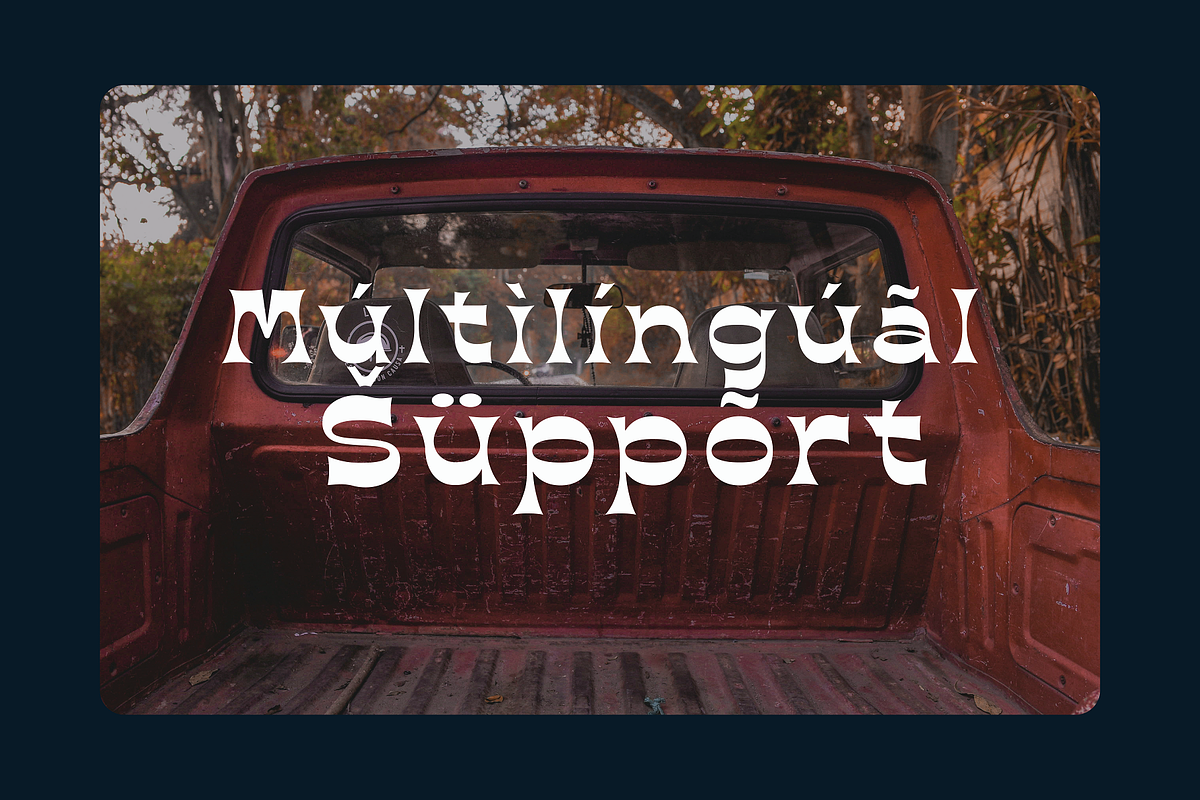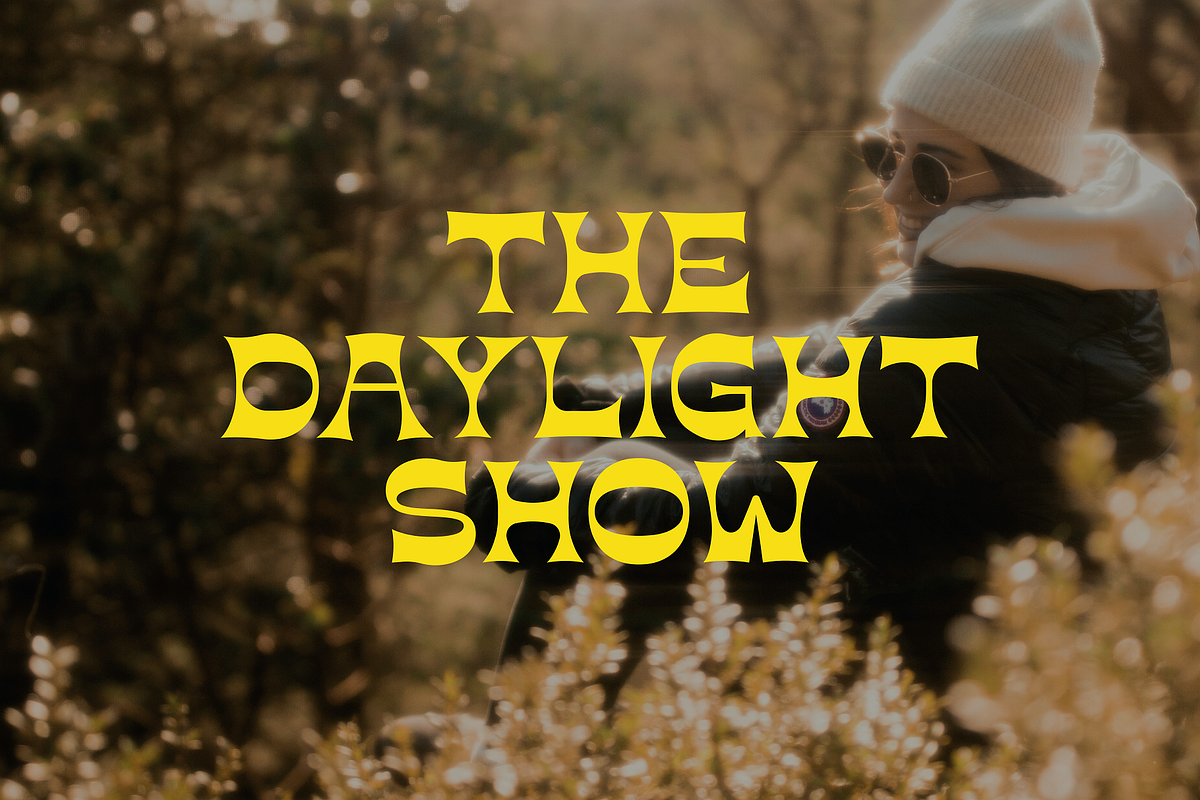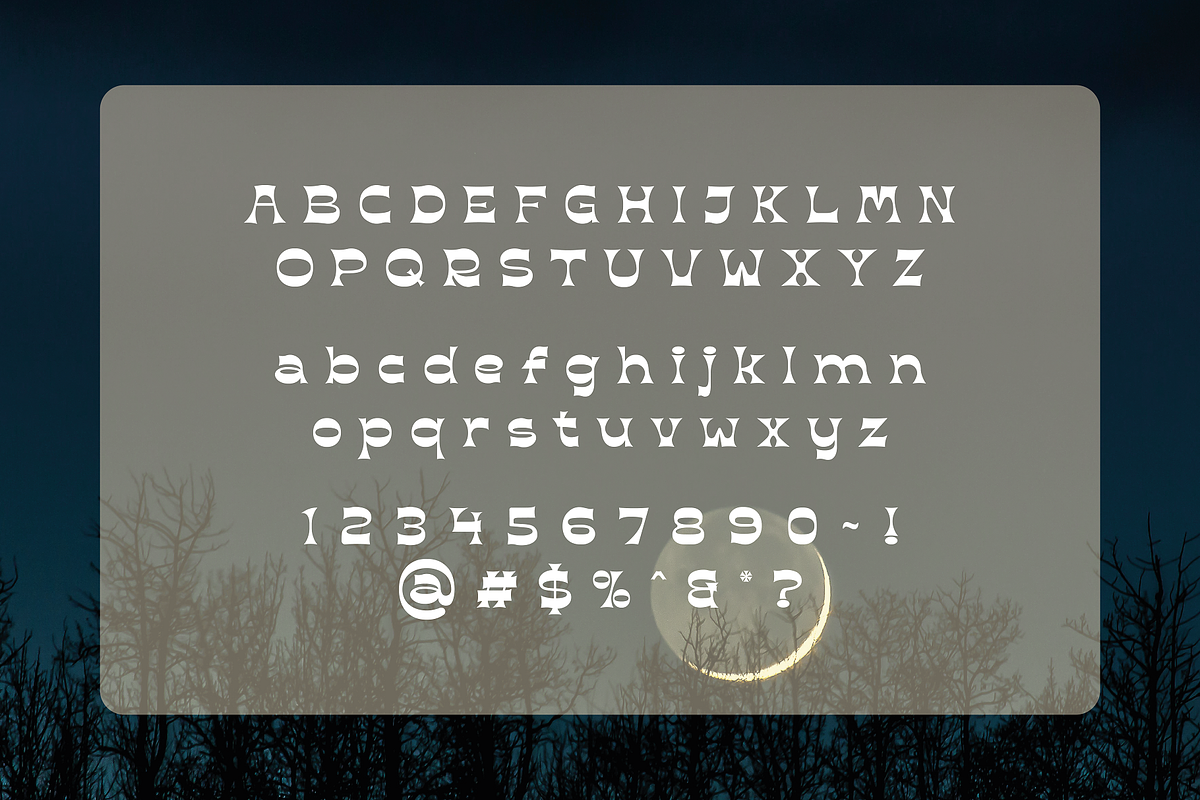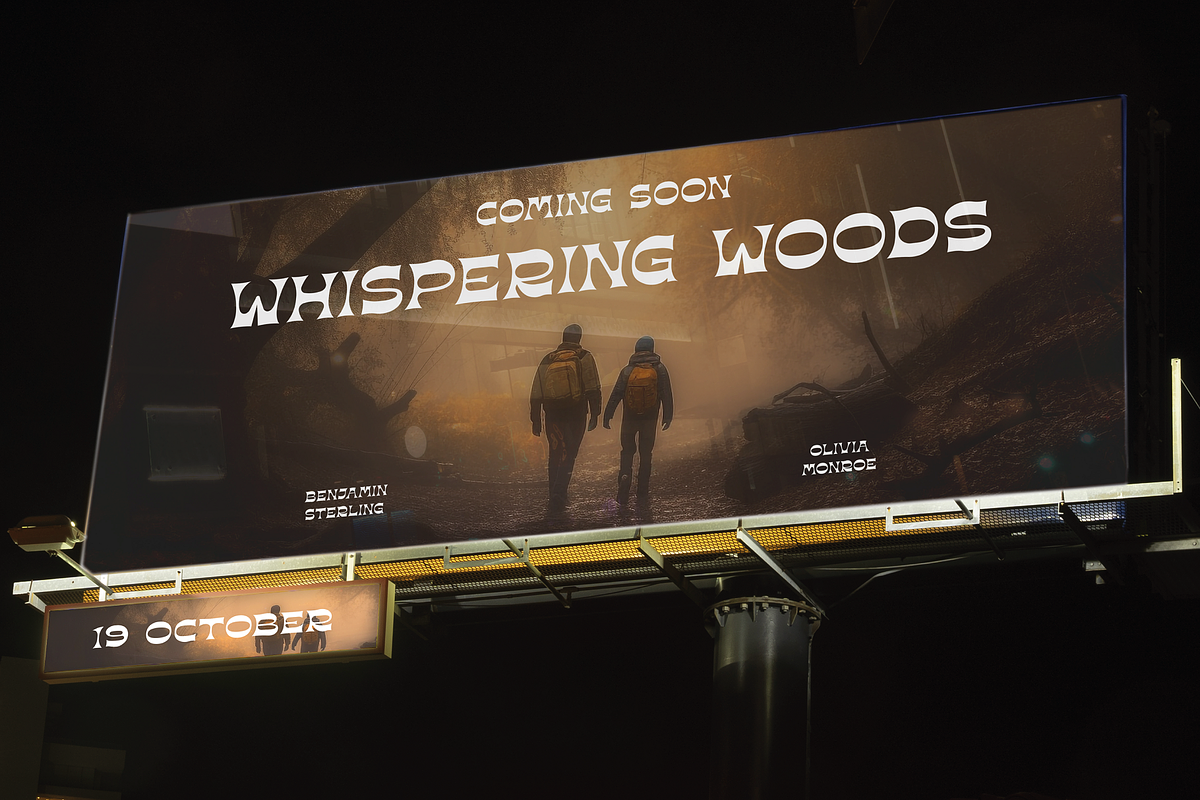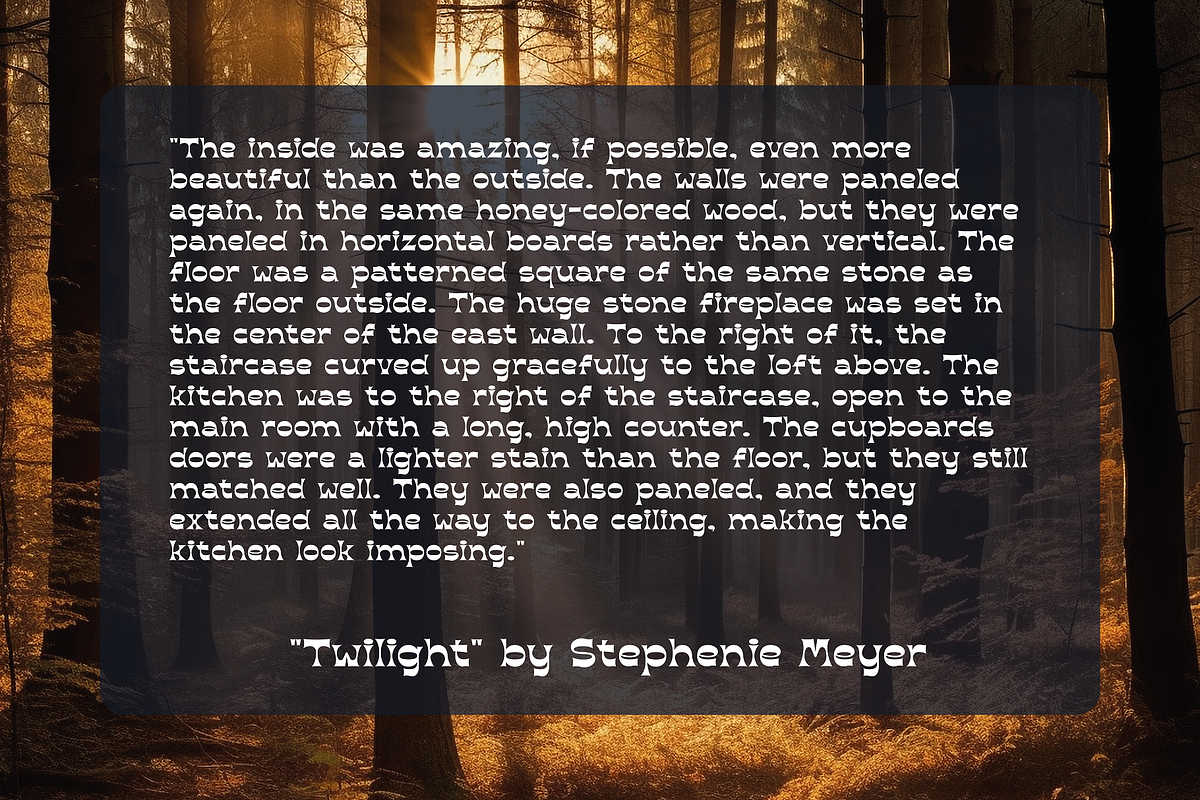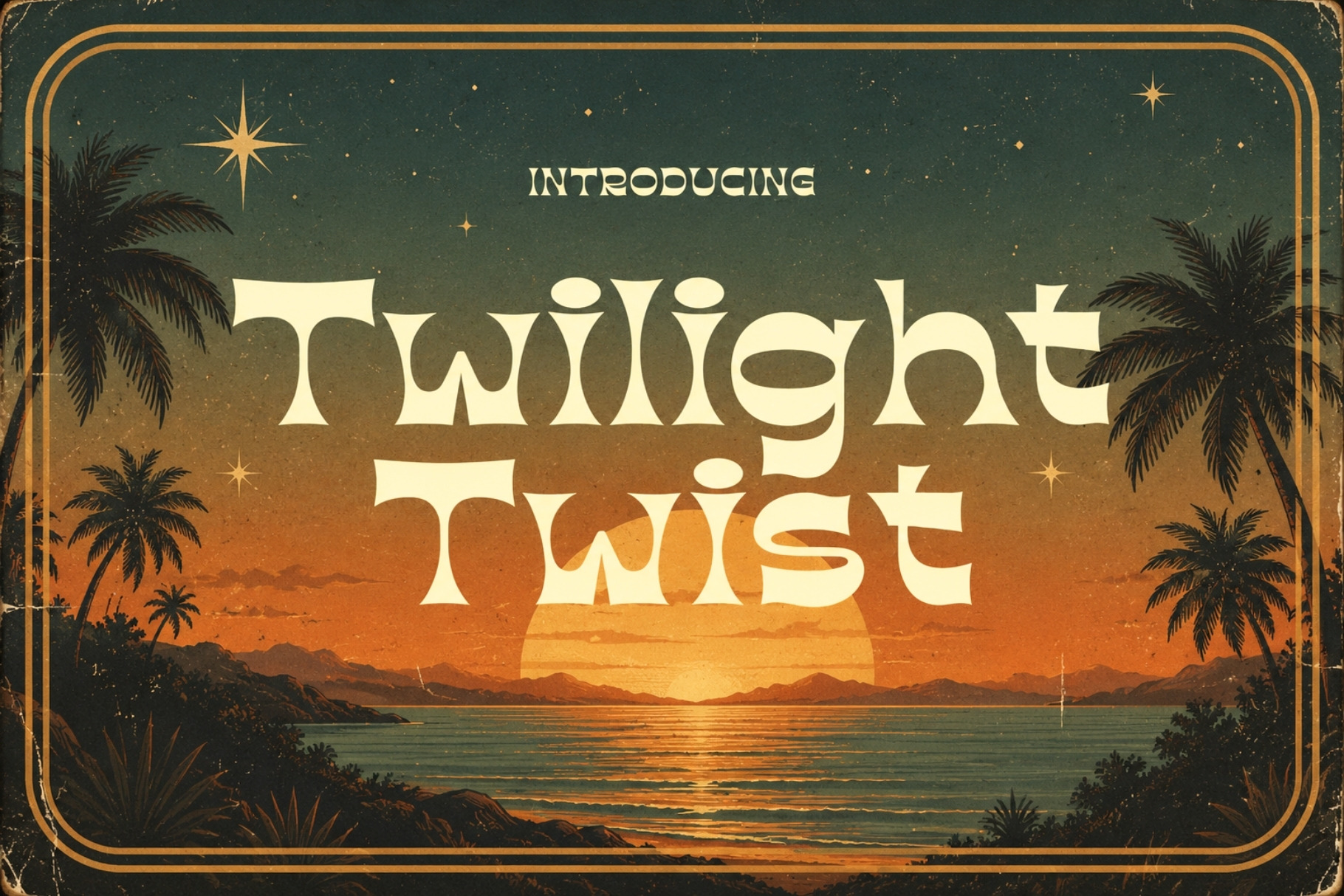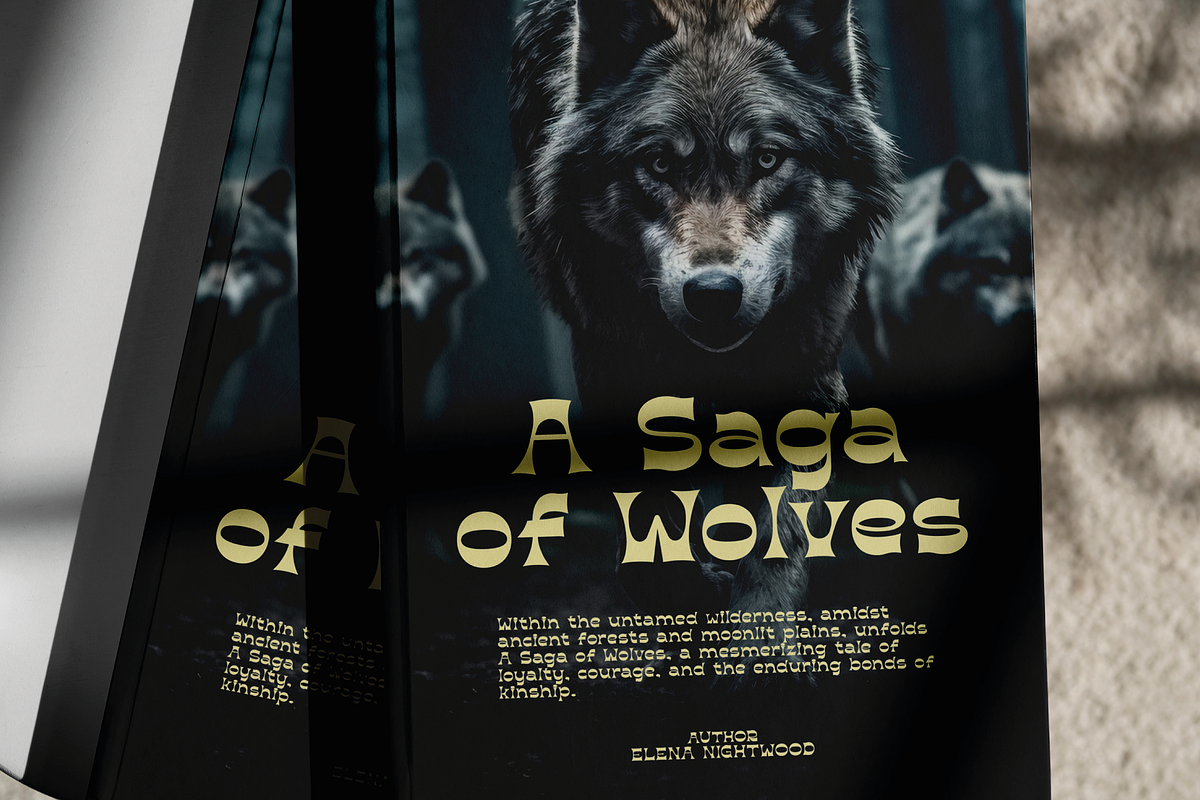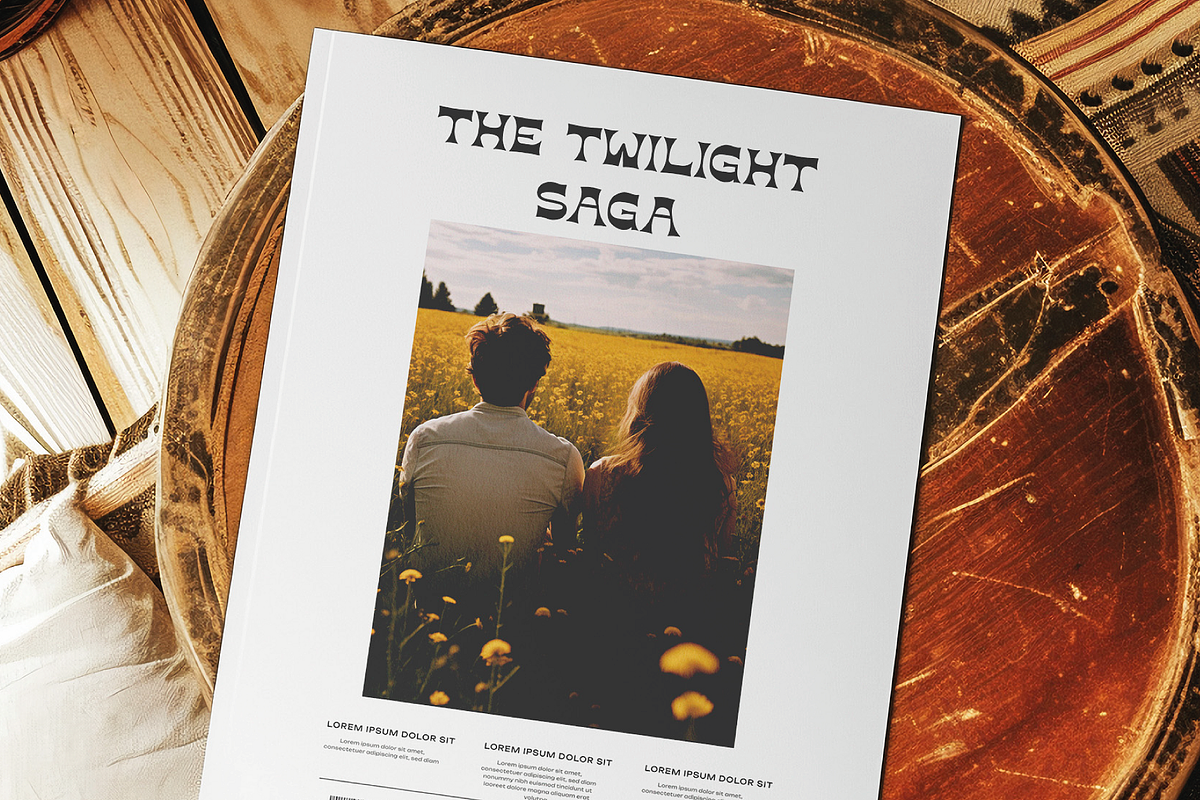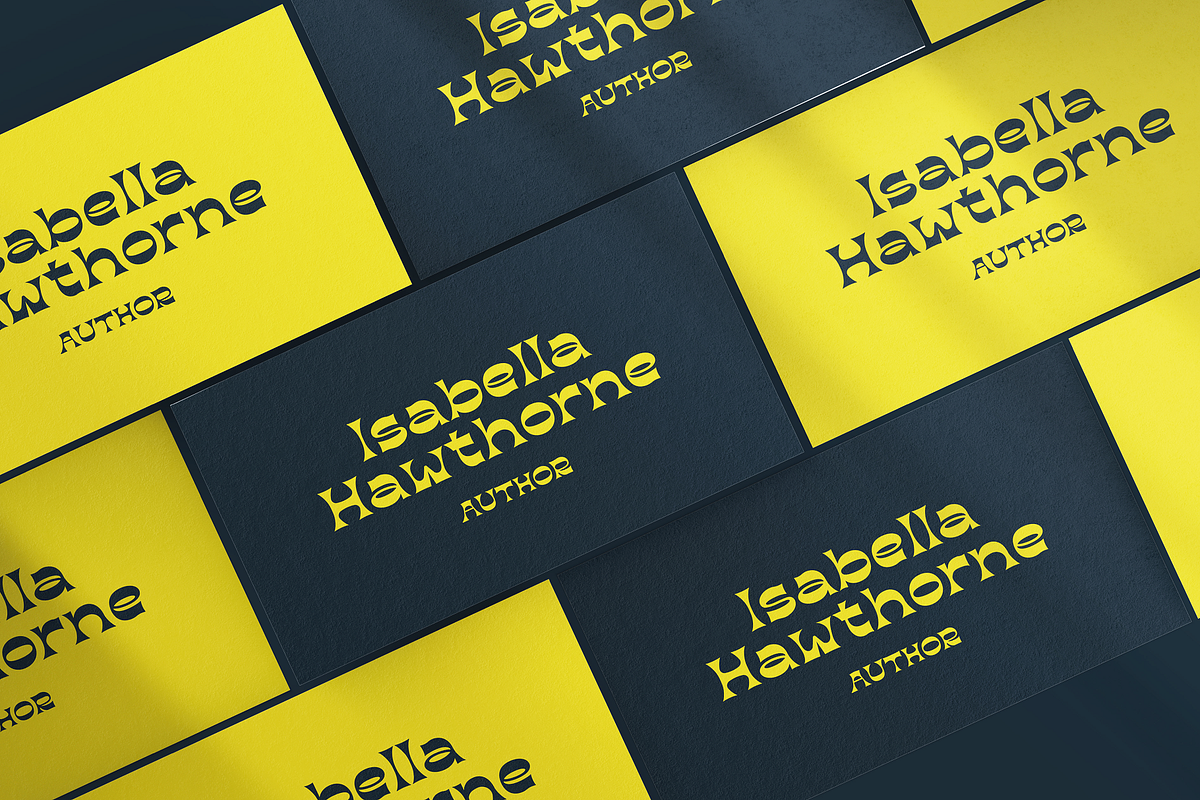
Twilight Twist - Retro Typeface
Venture into the enchanting hours of dusk with Twilight Twist, a retro typeface that harks back to the groovy era with a modern spin. This font is a harmonious blend of the bold confidence of vintage design and the mysterious allure of the twilight hour.
Each character in Twilight Twist is infused with the essence of retro stylings, boasting strong, curved lines and an undeniably groovy flair. The typeface offers a playful rhythm that dances across the page, reminiscent of retro album covers and psychedelic posters.
Twilight Twist is an ideal choice for projects that aim to stand out with a touch of nostalgia, perfect for music event branding, thematic bar menus, or any design piece that needs a retro revival with a charismatic edge. It's equally at home in digital settings or printed materials, offering versatility for a wide range of creative applications.
Take your audience on a journey through time with Twilight Twist - the retro typeface that’s both a nod to the past and a celebration of contemporary design, all while embracing the mystical vibe of the fading light.